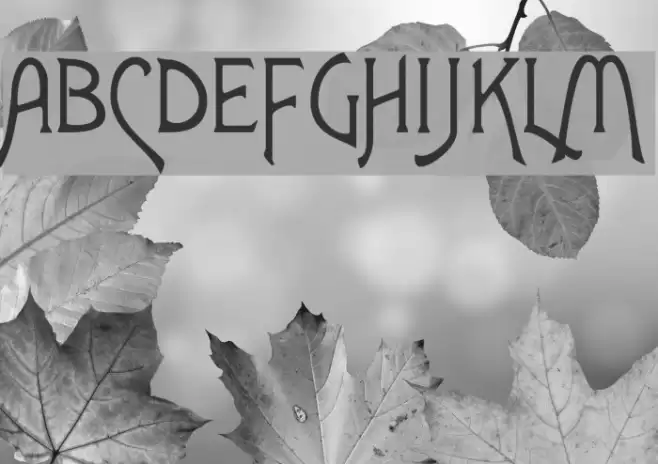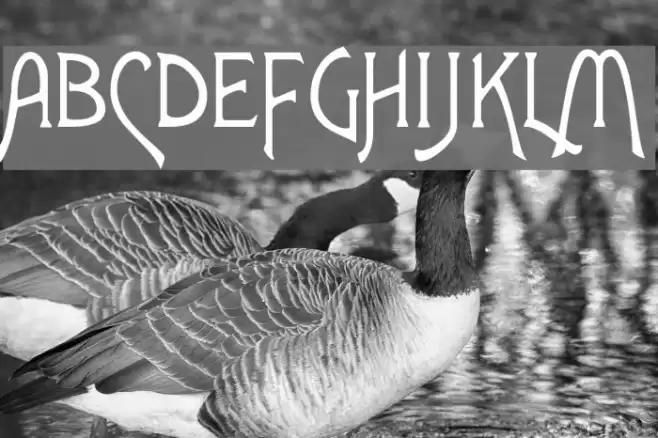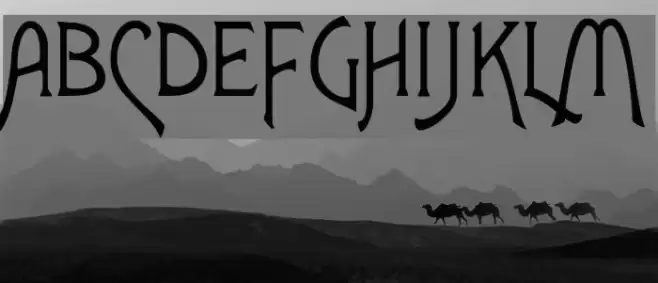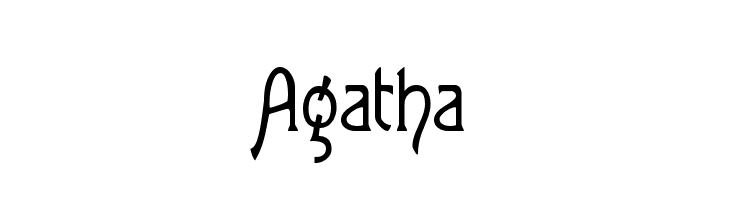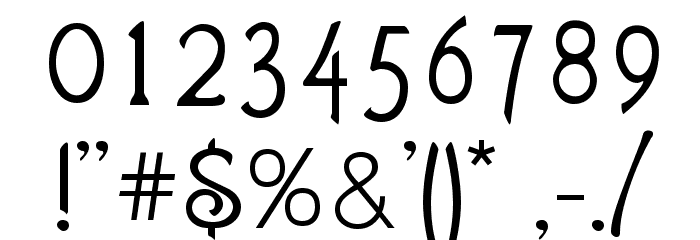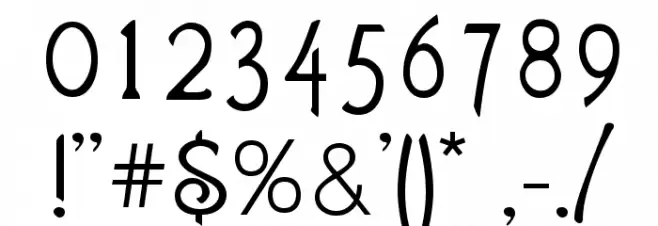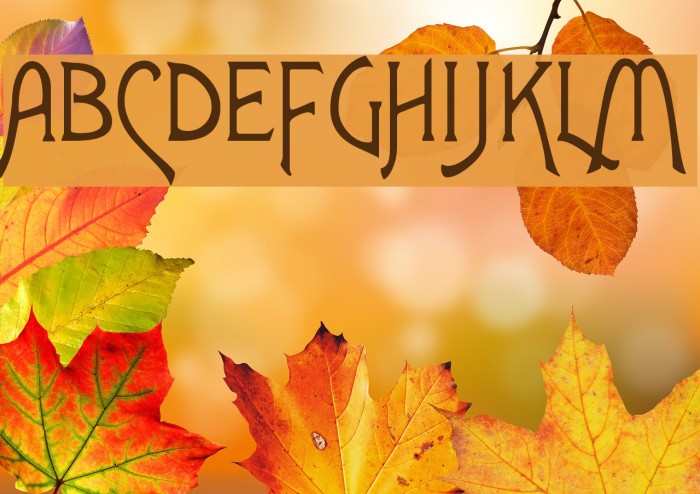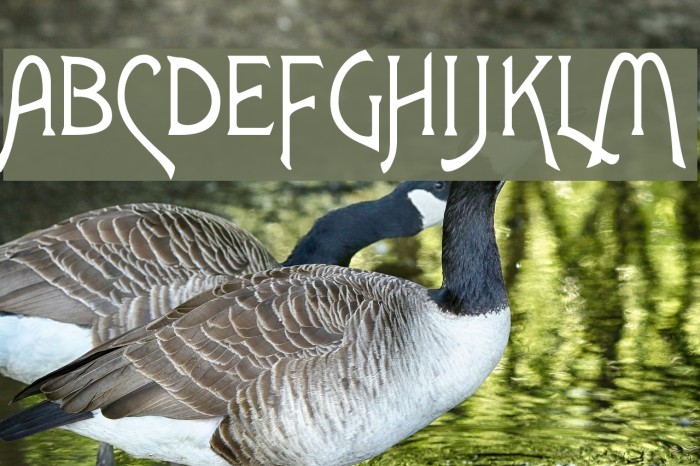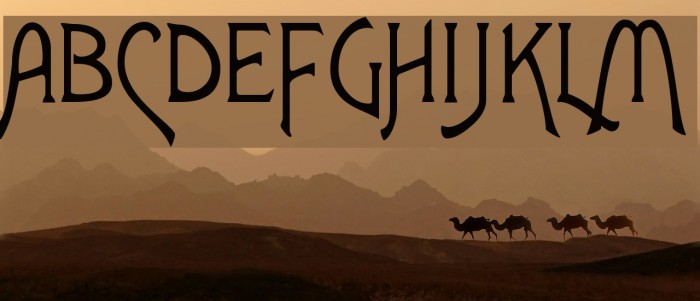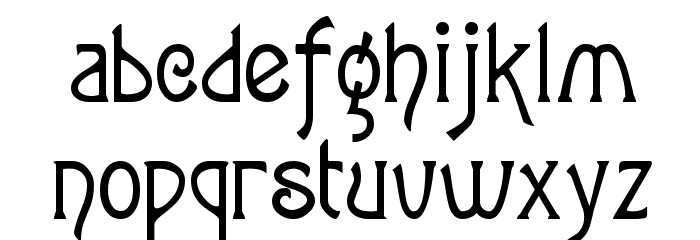
Agatha Font
Agatha Description
This font features a distinctive and artistic style, characterized by its elongated and slightly curved letterforms. The uppercase letters exhibit a unique blend of sharp angles and smooth curves, giving them a dynamic and somewhat whimsical appearance. The lowercase letters maintain a consistent style, with some characters incorporating playful loops and flourishes. The numerals are bold and clear, ensuring readability. Special characters are creatively designed to match the overall aesthetic, adding to the font's decorative appeal. This font's unique style makes it suitable for creative and artistic projects.
A decorative font with elongated, artistic letterforms and playful flourishes from Decorative fonts.
- Proposed Projects: Ideal for artistic projects, invitations, posters, and branding that require a creative touch.
- Use Case: Headlines, Logos, Artistic projects